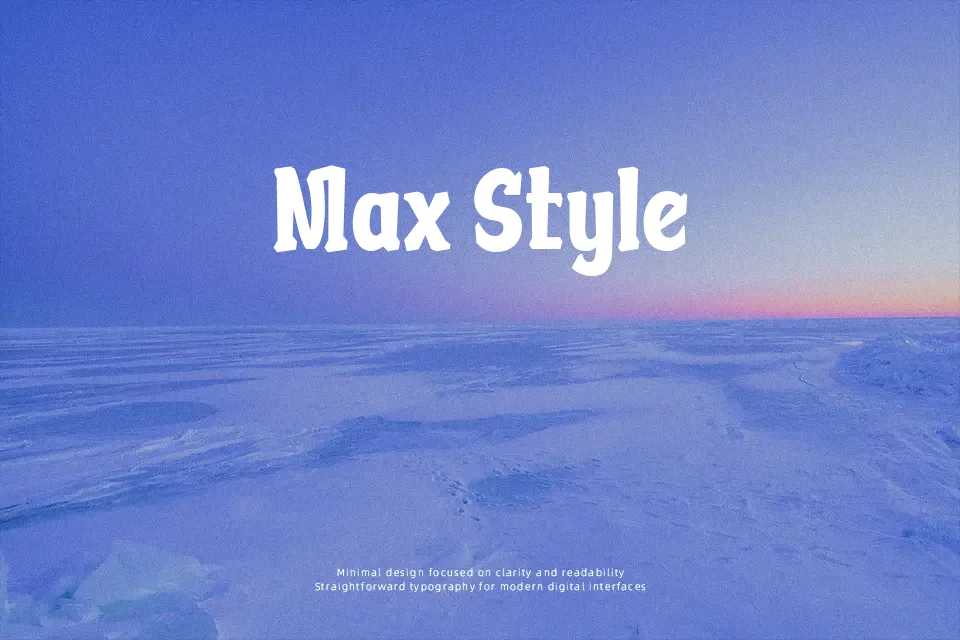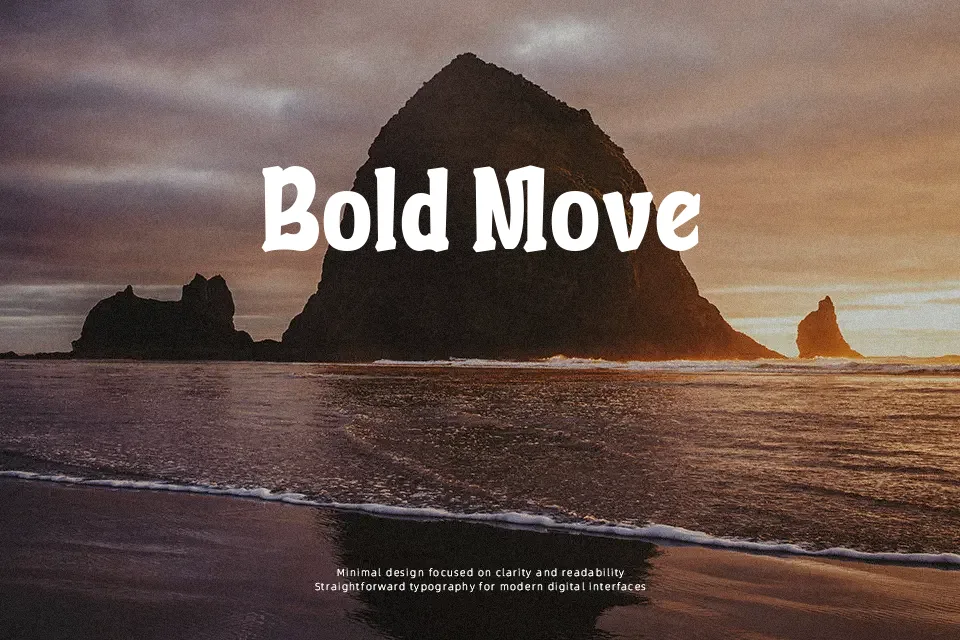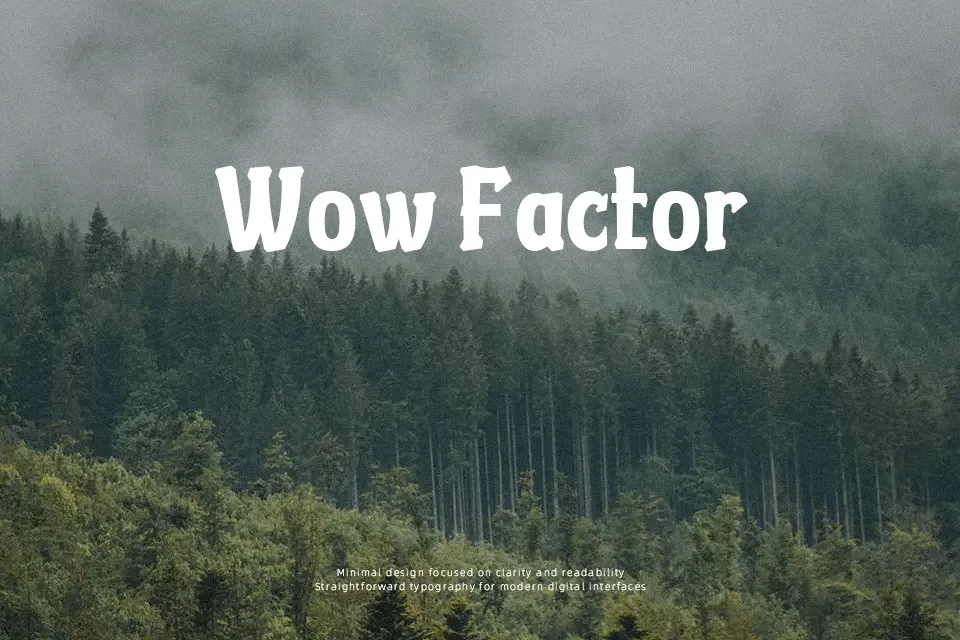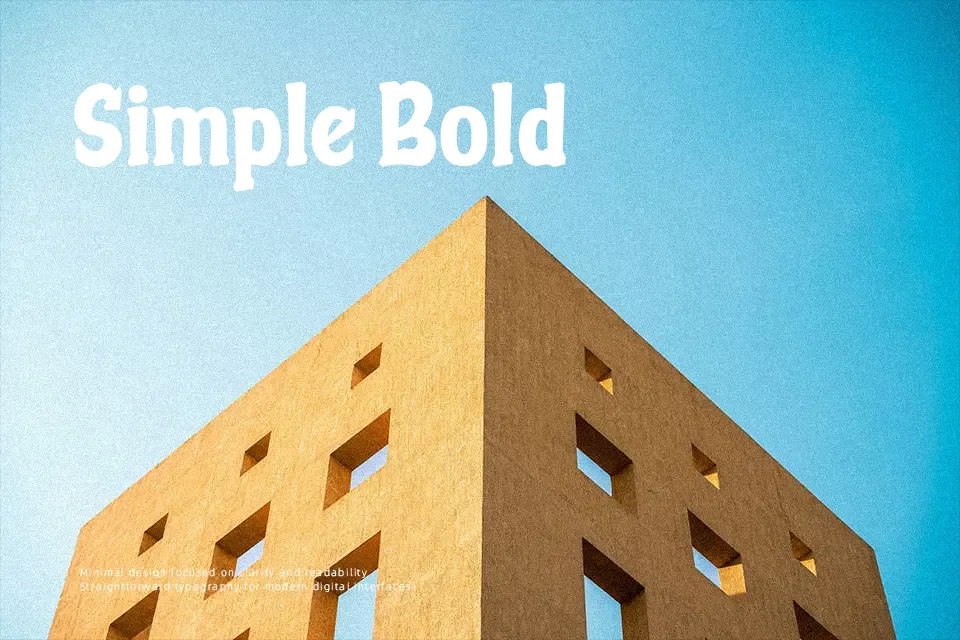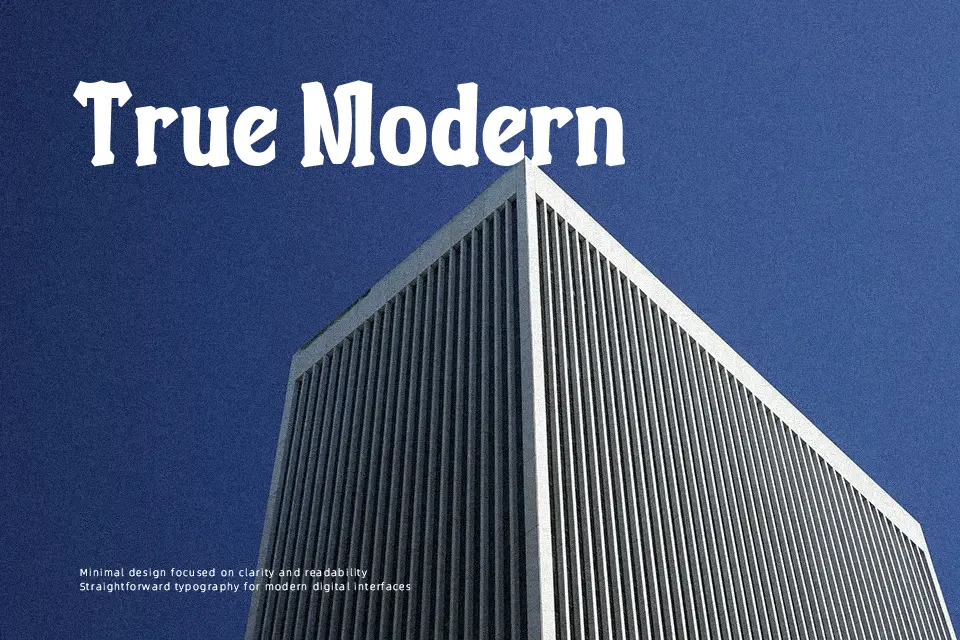
Abutcin Font
Abutcin leans hard into theatrical weight — its letterforms carry bold strokes, sharp contours, and a sense of composed intensity that reads less like a typeface and more like a set piece. It belongs to the display category, built for scale: large headers, poster titles, and promotional materials where a single word needs to carry visual gravity. The spacing holds up well at headline sizes, but tighten it down to body copy and it collapses fast — this is not a workhorse font. Where it earns its place is in film-adjacent design: a thriller poster, a streaming platform banner, a music event title card. Think less editorial polish, more spotlight.
Best For:- Film poster title headers
– Streaming or entertainment platform banners
– Music event promotional graphics
– Dark-themed social media title cards
Not Ideal For:- Body text or extended paragraph reading
– Corporate or professional business documents
– Minimalist or clean UI design contexts
– Light, playful, or children’s themed projects
Perfect for branding, film, and headline, with a bold and decorative style.